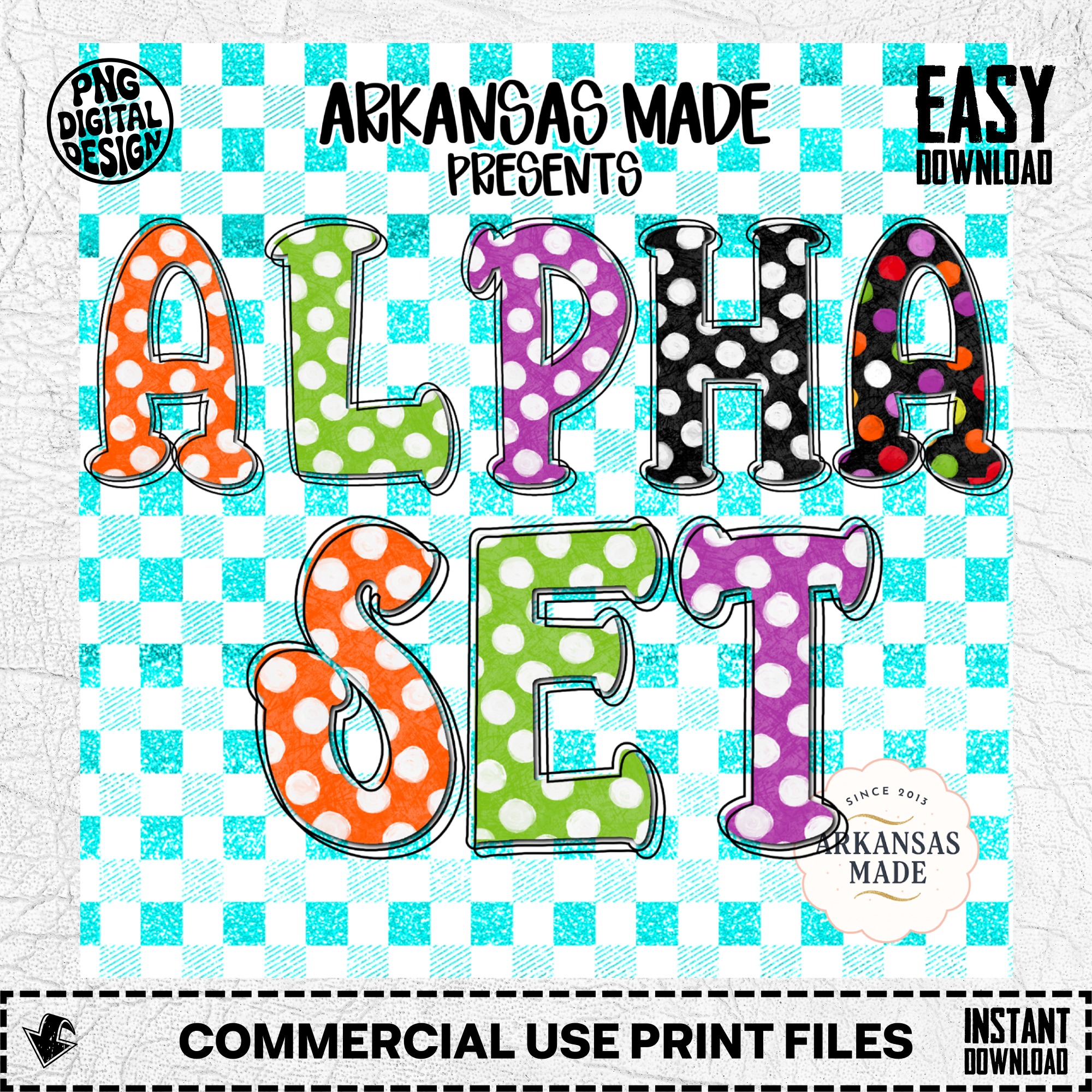
Halloween Alphabet Set PNGs, Spooky Cute Polka Dot Bubble Letters Digital Download, Fun Fall Font Clip Art for Sublimation
Get into the spooky season spirit with our vibrant Halloween Alphabet Set PNGs! Perfect for all your digital crafting and sublimation needs. This playful polka dot bubble letter collection adds a fun, whimsical touch to any project, from custom shirts and mugs to party invitations and classroom decor. Ideal for crafters, small business owners, and anyone looking to create unique, spooky-cute designs for Halloween or fall festivities. Fuel your creativity with these versatile, ready-to-use digital letters.